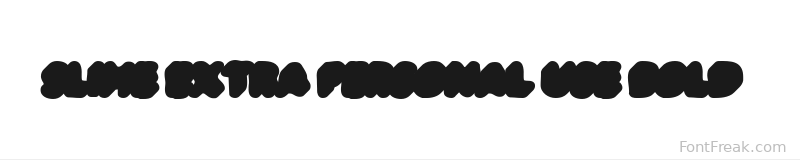
SLIME EXTRA PERSONAL USE Bold
SLIME PERSONAL USE Bold
SLIME EXTRA PERSONAL USE Bold, created by Billy Argel Fonts, is a striking display font that embodies a playful and whimsical aesthetic. This font is characterized by its bold stroke weight and rounded edges, which give it a distinctly fun and energetic vibe. The unique design incorporates irregular shapes and a slightly uneven baseline, contributing to its overall charm. With minimal contrast in stroke thickness, the font maintains a solid presence, making it ideal for eye-catching displays.
This font shines in a variety of creative applications. It can be effectively used in children’s book covers, where its playful nature appeals to young audiences. Additionally, it is perfect for designing vibrant event flyers, such as birthday party invitations, where a sense of fun is essential. Restaurant menus that aim to convey a casual and inviting atmosphere can also benefit from the bold and friendly character of SLIME EXTRA PERSONAL USE Bold. Moreover, it serves well in social media graphics, helping content creators capture attention with its unique style.
The target audience for this font includes graphic designers looking to add a touch of whimsy to their projects, small business owners seeking to create memorable branding, and content creators aiming to enhance their visual storytelling.
What sets SLIME EXTRA PERSONAL USE Bold apart is its ability to combine a playful aesthetic with a bold presence. Ideal for personal use, this font allows designers to explore their creativity while ensuring their work stands out. For those interested in adding a fun twist to their design toolkit, the SLIME EXTRA PERSONAL USE Bold font free download is a fantastic choice, offering versatility and character that can elevate any project.